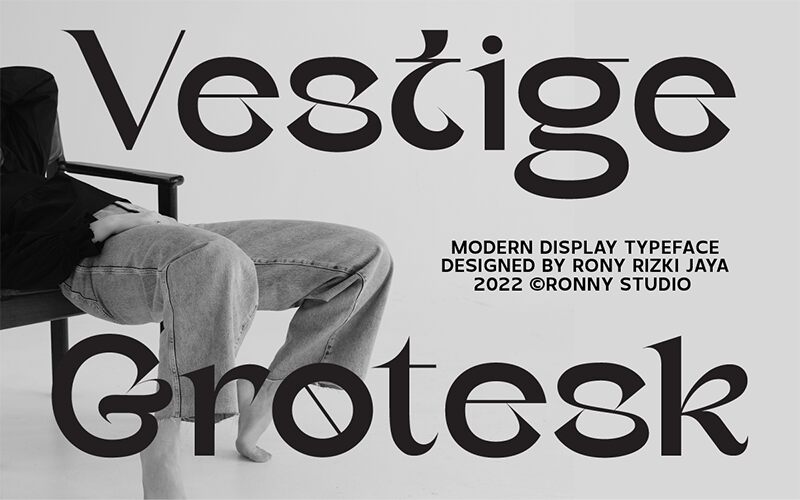
Vestige Grotesk, designed by Ronny Studio, is a captivating modern serif font that exudes sophistication and elegance. With its semi-light weight and semi-expanded width, this font offers a harmonious balance between readability and style. Its clean lines and refined curves make it suitable for a wide range of projects.
From minimalist branding to editorial design, Vestige Grotesk adds a touch of contemporary charm to logos, websites, magazines, and more. Let this versatile typeface elevate your creative endeavors with its timeless appeal.